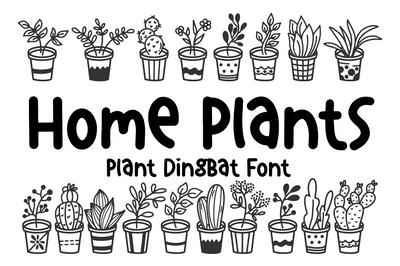
Home Plants - a Dingbat Font
Home Plants is a creative dingbat font. font with a unique, cute, and very beautiful House Plant theme. Illustration font in Doodle or line art style. This font is very compatible and can be installed in various software!